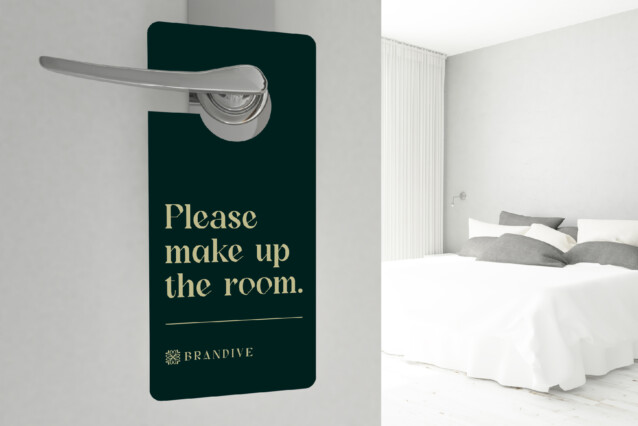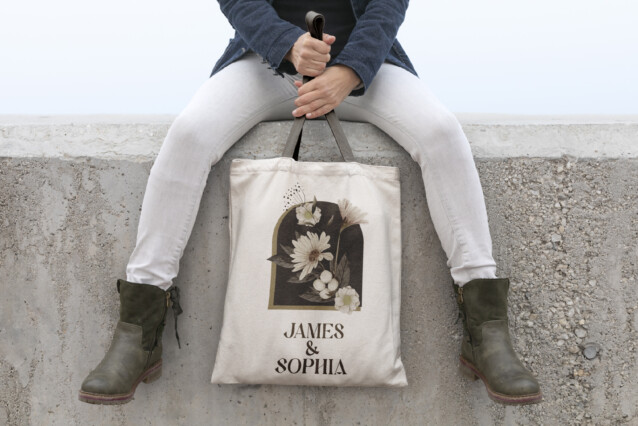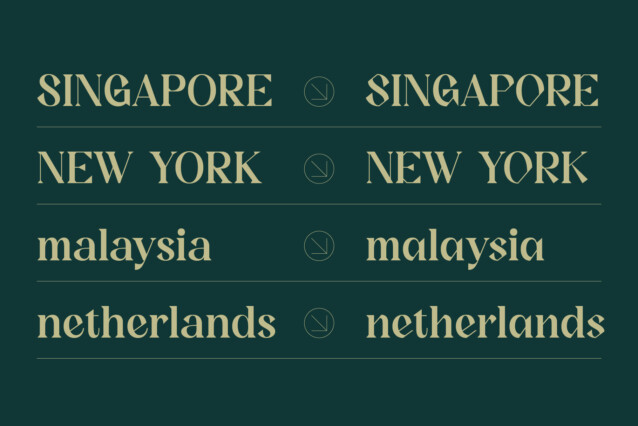
Syrinx Typeface
Syrinx Typeface – This typeface has a unique and attractive appearance. SYRINX looks great when combined with solid character fonts.
For branding projects, logos, wedding designs, social media posts, advertisements, product packaging, product designs, labels, photography, watermarks, invitations, stationery, and anything requiring handwritten taste, SYRINX is perfect.